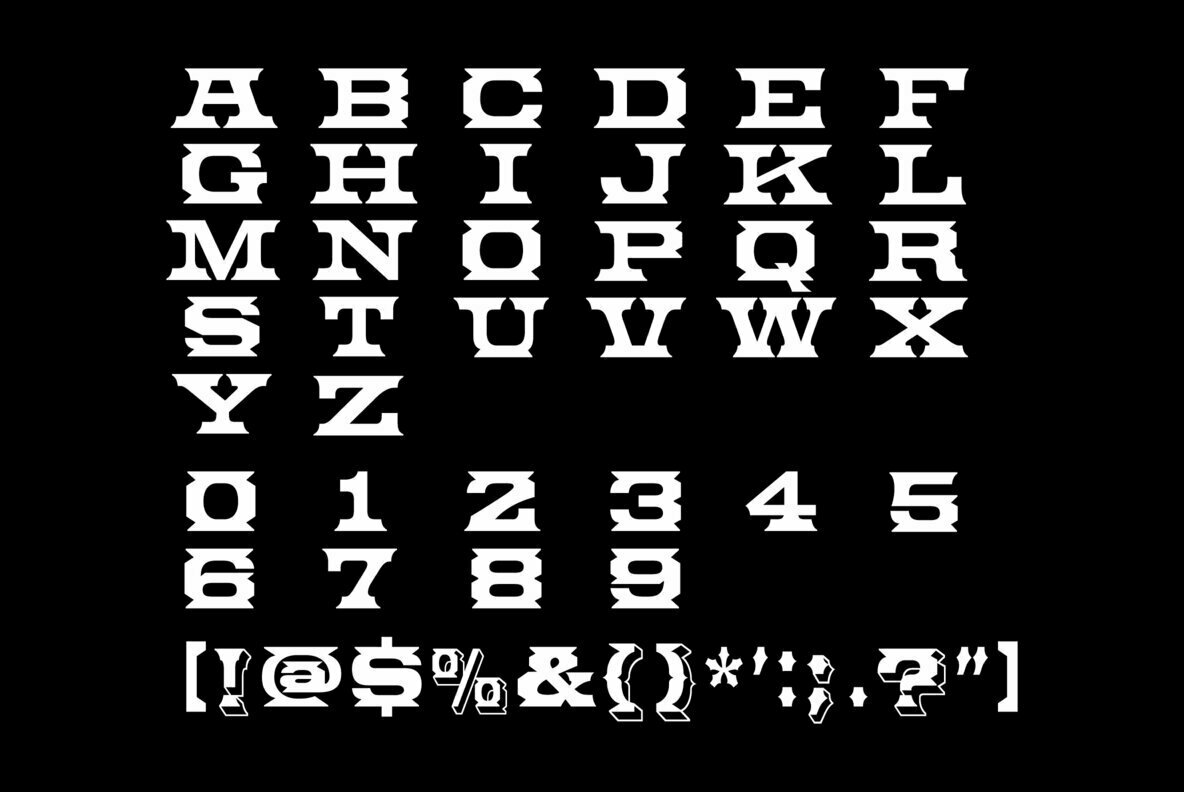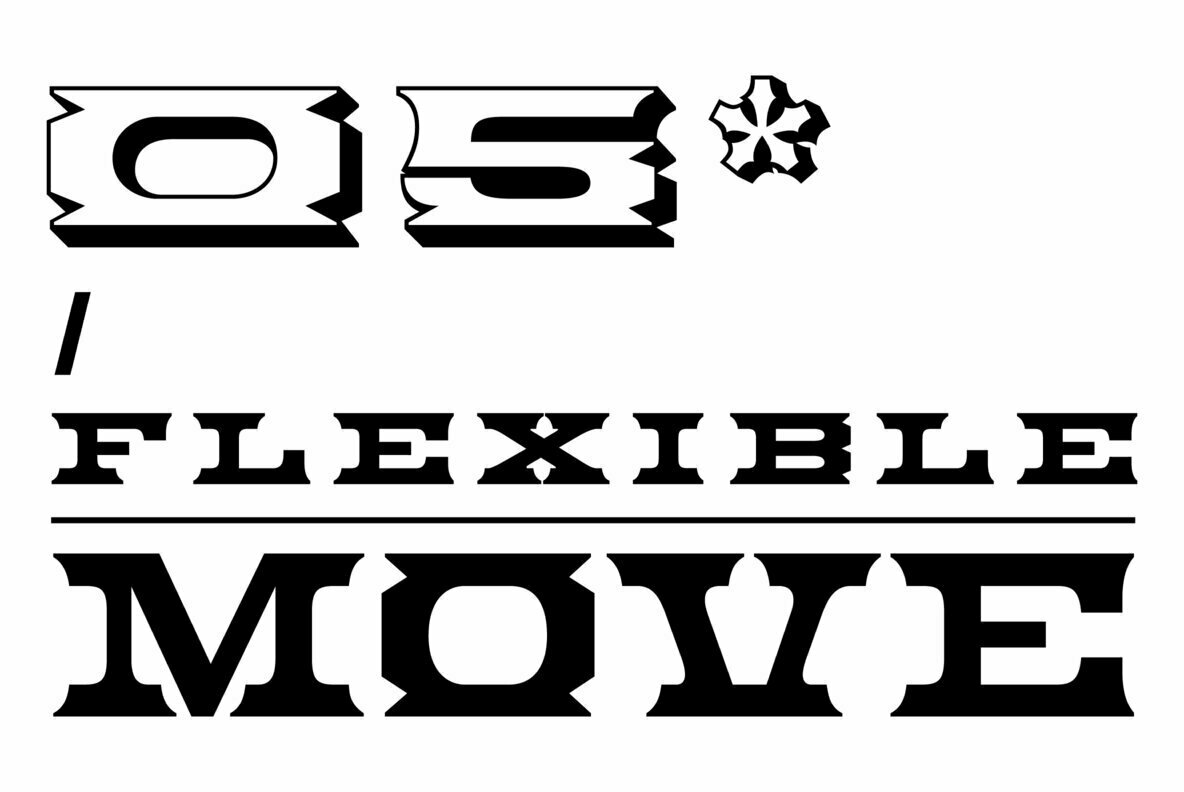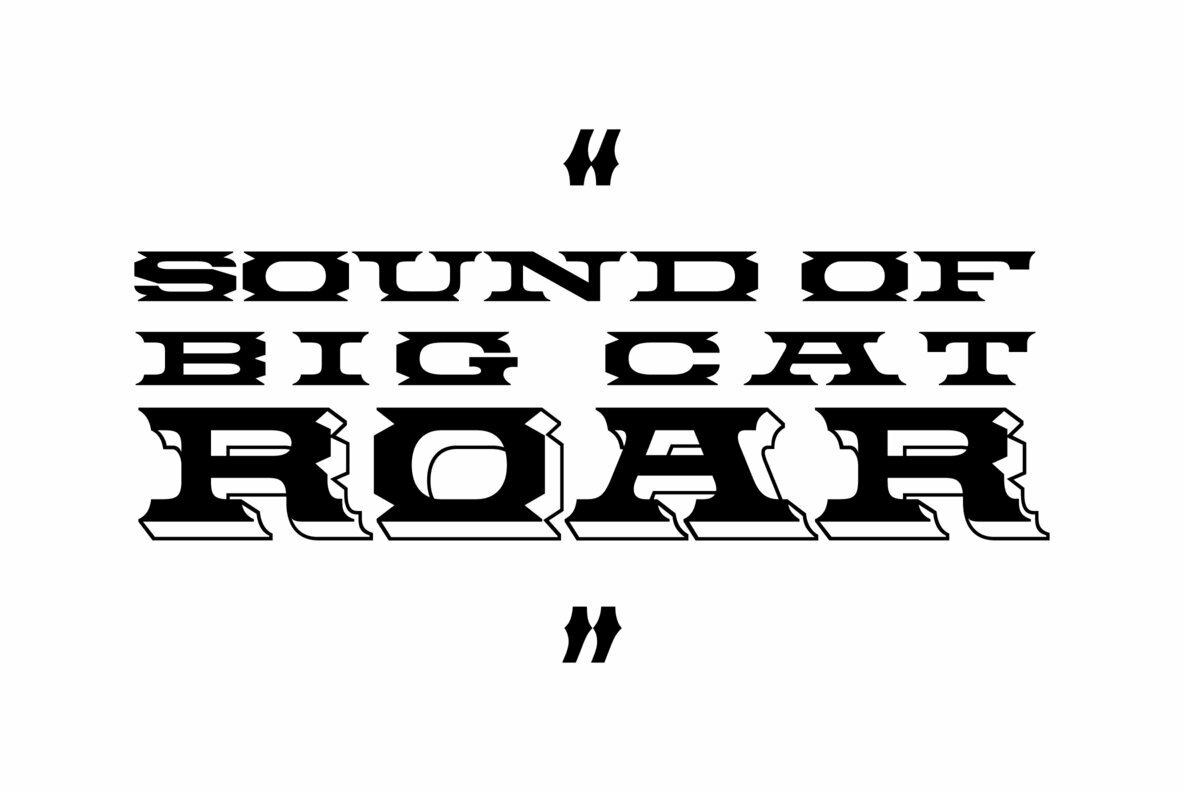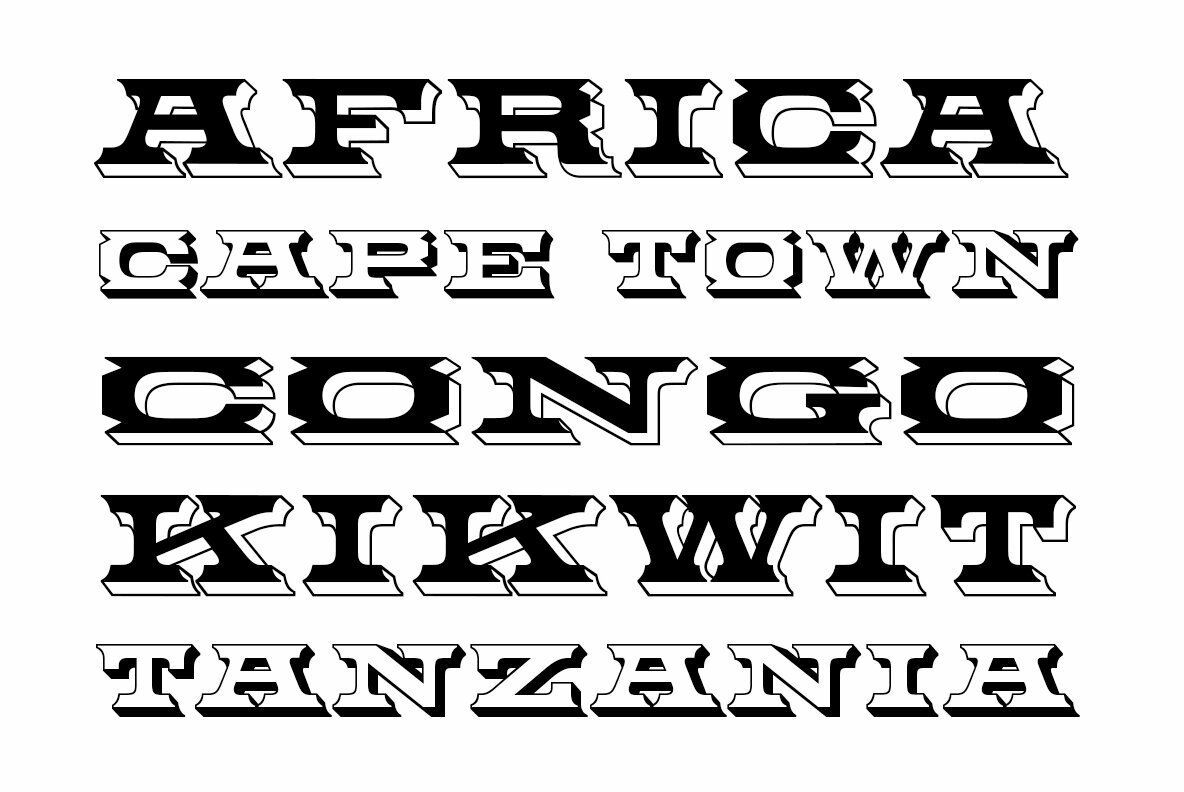
Big Cat Font
Released in 2006 under the name Flatrock this new 2020 version takes back the original name of Big Cat. Also new for 2020 are two solid black weights and Big Cat now has additional accented glyphs for eastern European countries.
If you're looking to make an authentic 1800's broadside poster then Big Cat is perfect for the job, combine it with other woodtype fonts from our collection.